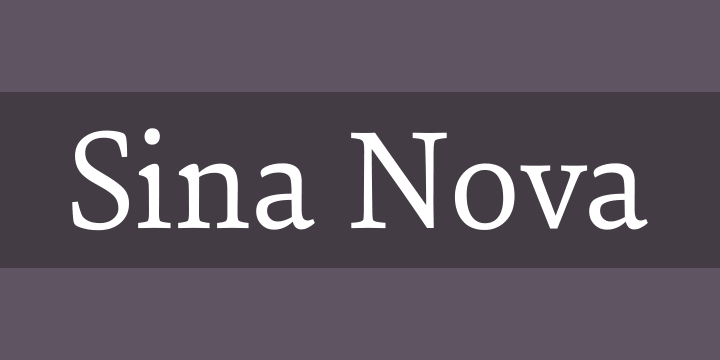
Sina comes in 12 styles and in OpenType format. All styles contain standard and discretional ligatures, small caps, proportional lining figures, tabular lining figures, proportional old style figures, lining old style figures, matching currency symbols, fraction- and scientific numerals. Sina supports Western European, Central and Eastern European languages.
Classification: | Serif | |